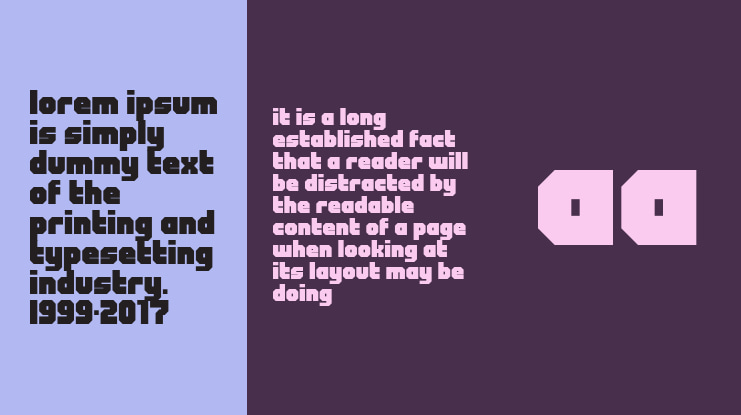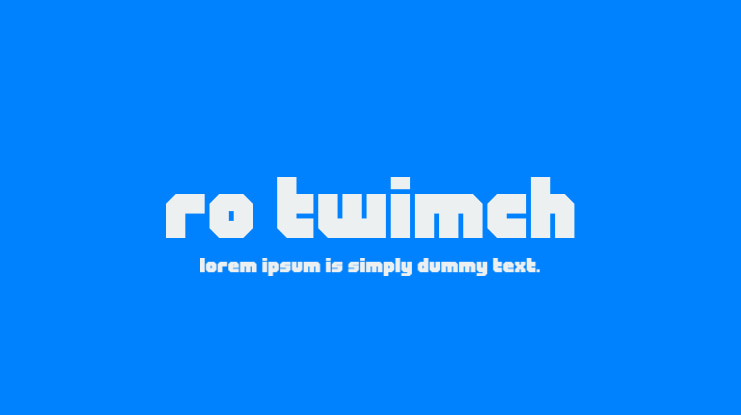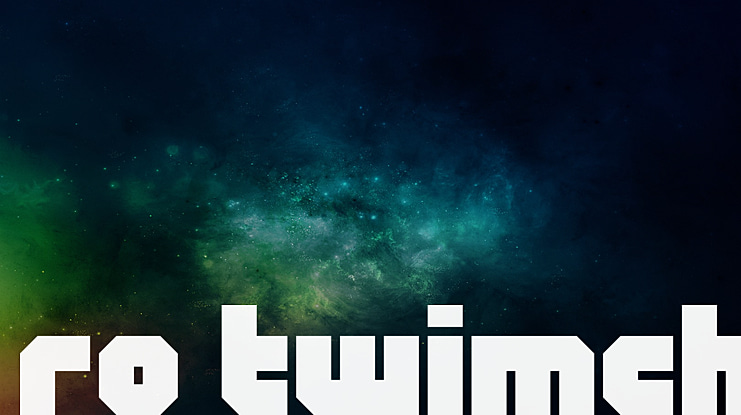
RO twimch Font
A replica font based off of the modern twitch wordmark, made in FontStruct.
This font is relatively old, but most characters hold up if you ask me, ripooof. :)